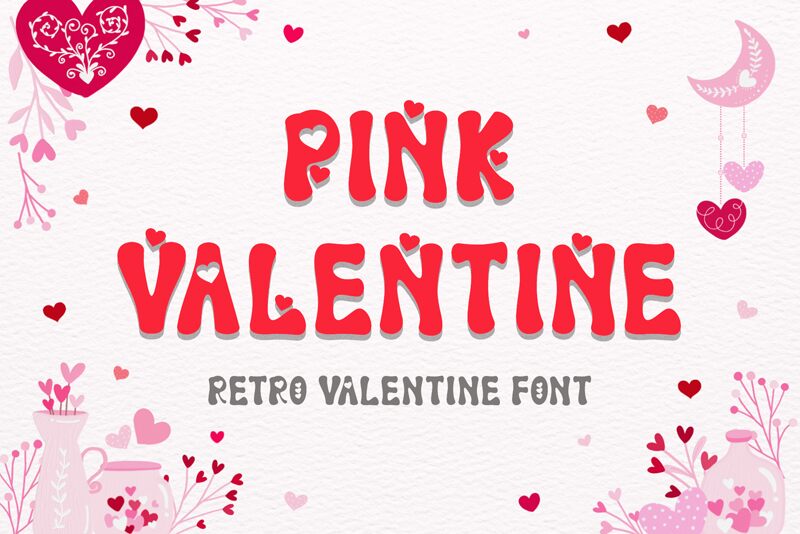
Pink Valentine is a bold retro valentine font designed by Yoga Letter 2022 (Isroni Yoga Prasetya). It's perfect for creating unique invitations, posters and cards for special occasions, romantic typography designs and vintage-style logos.